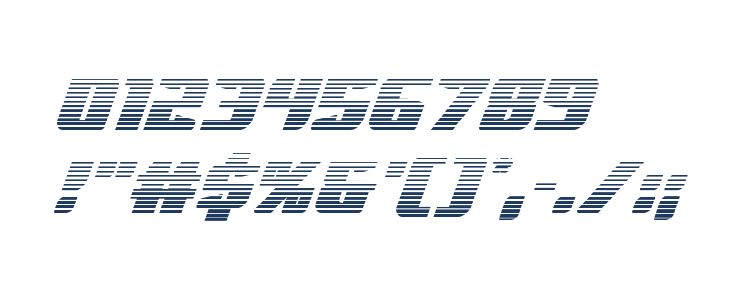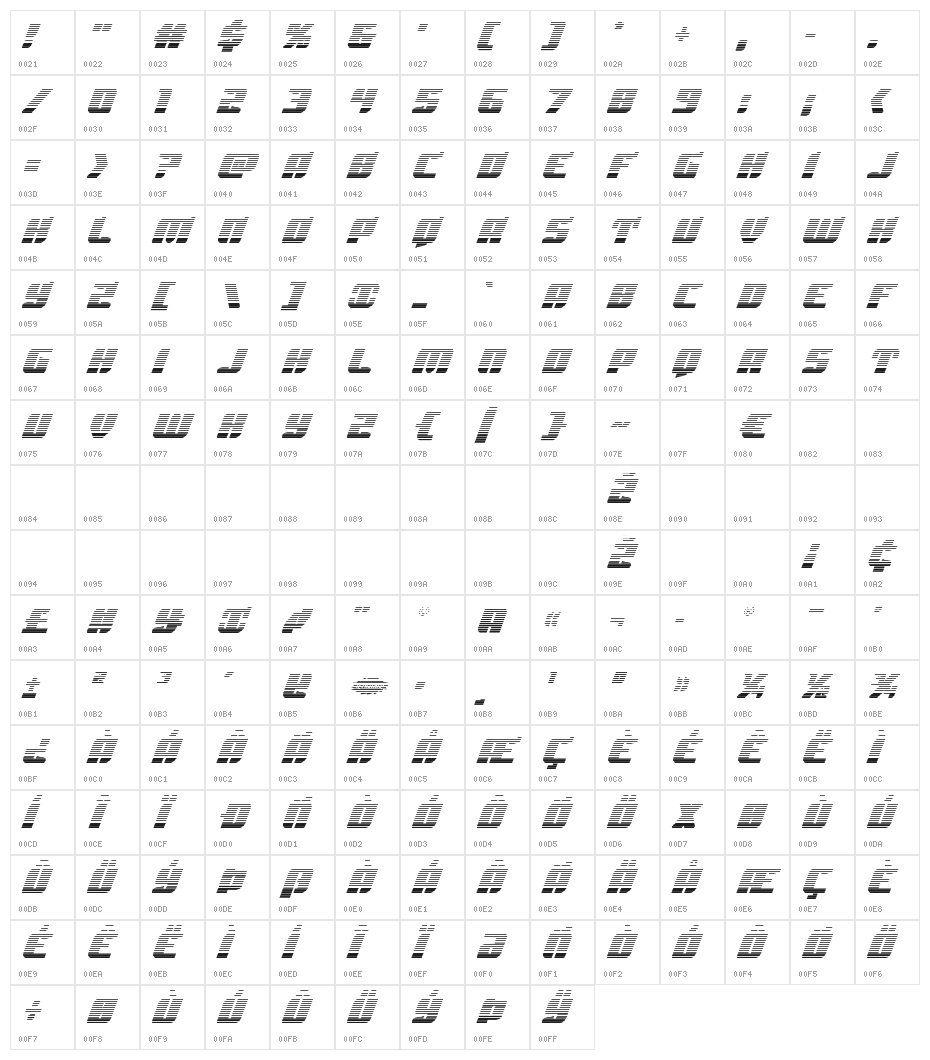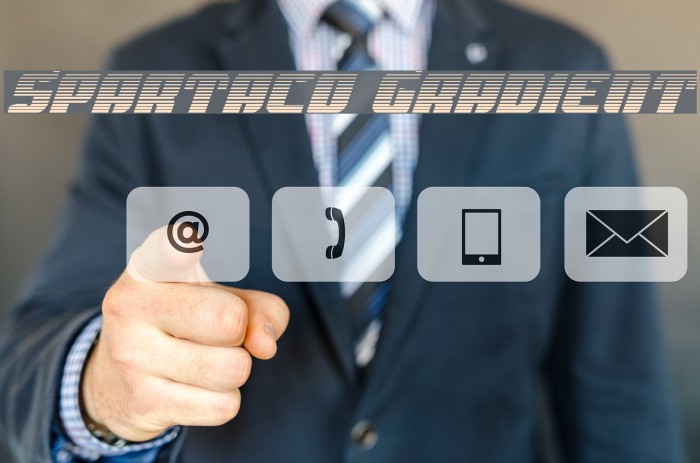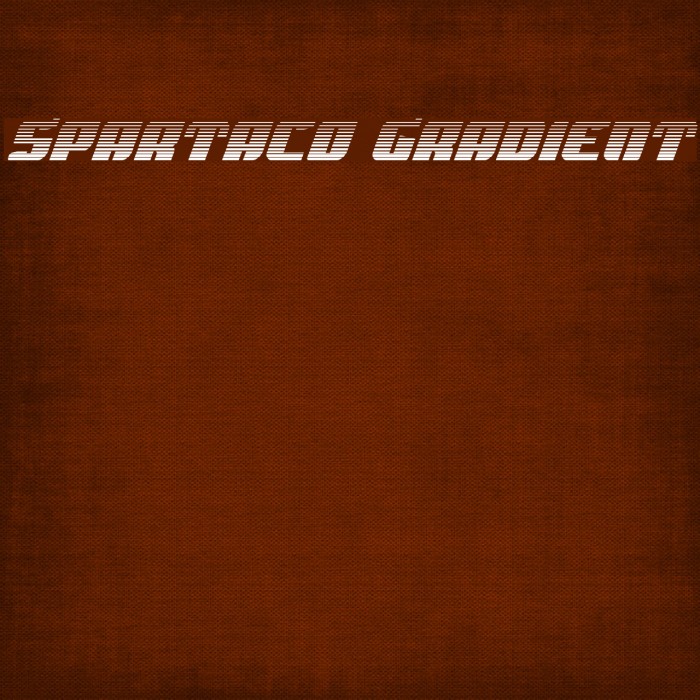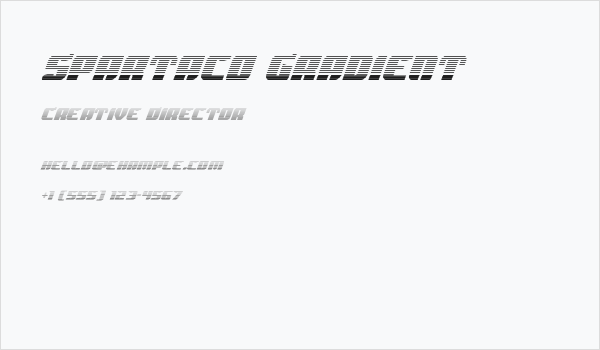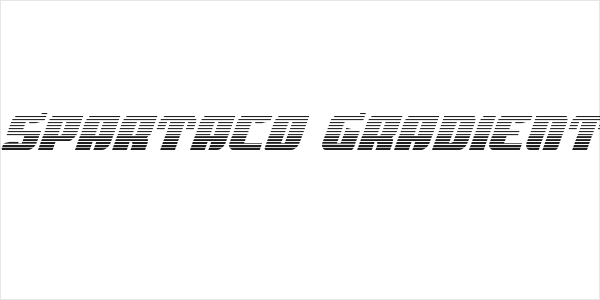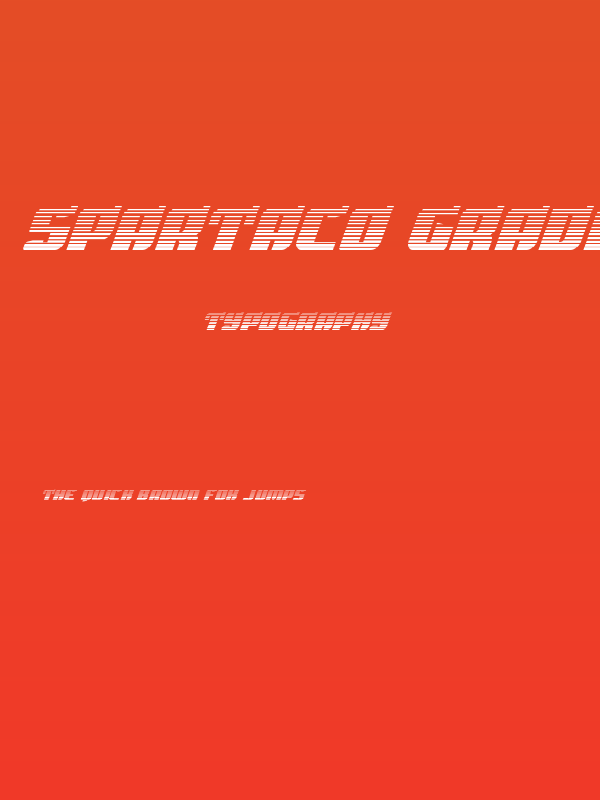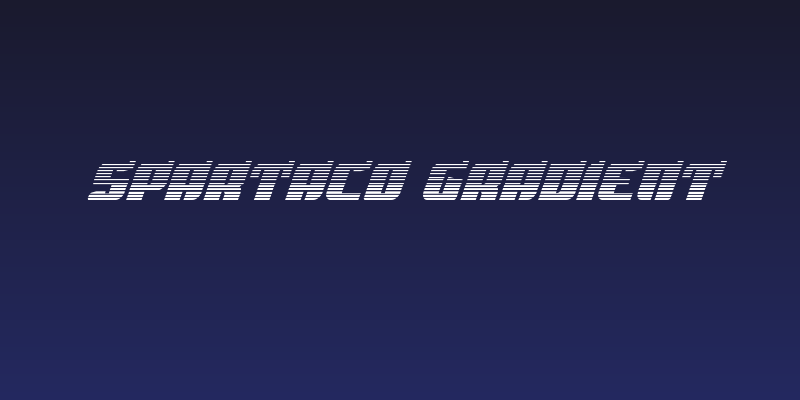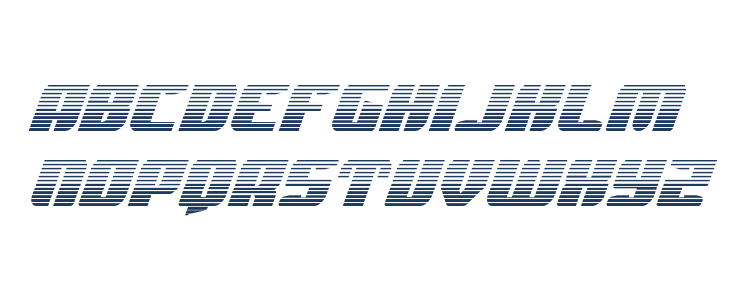
Spartaco Gradient Font
Spartaco Gradient Description
This font features a bold, modern design with a distinct gradient effect created by horizontal lines running through each character. The uppercase and lowercase letters, as well as numbers and special characters, maintain a consistent style that emphasizes a futuristic and dynamic appearance. The characters are slightly slanted, adding a sense of movement and speed. The unique gradient effect gives the font a three-dimensional look, making it stand out in digital and print media. This font is ideal for projects that require a bold and eye-catching typeface, such as sports branding, technology-related designs, or modern advertising campaigns.